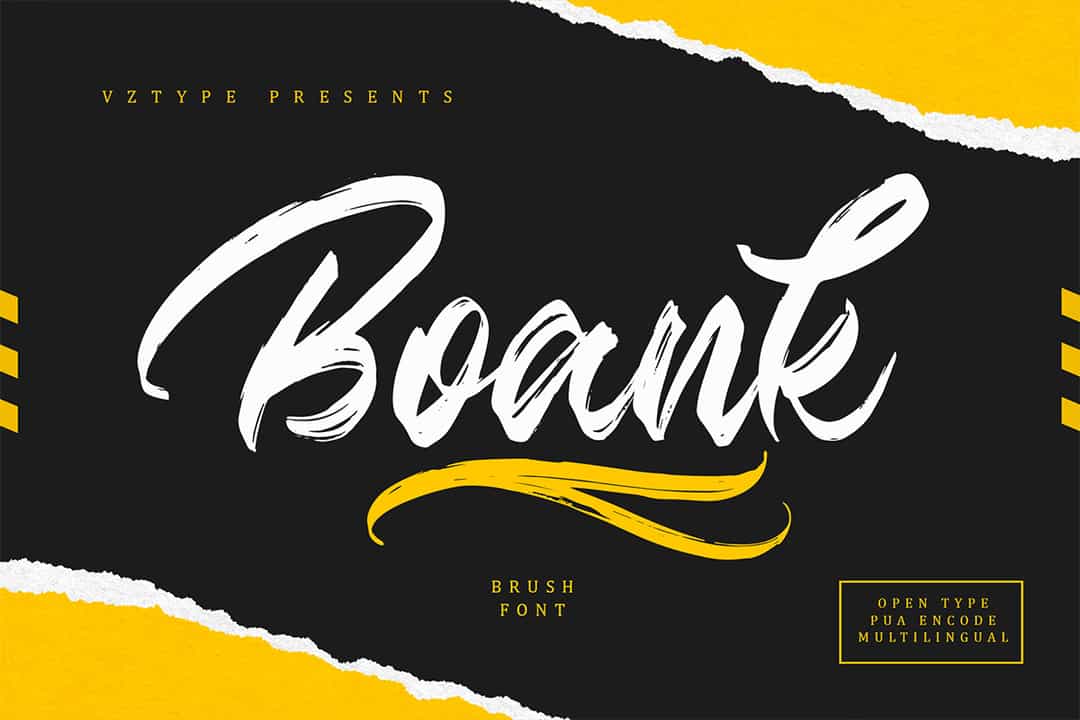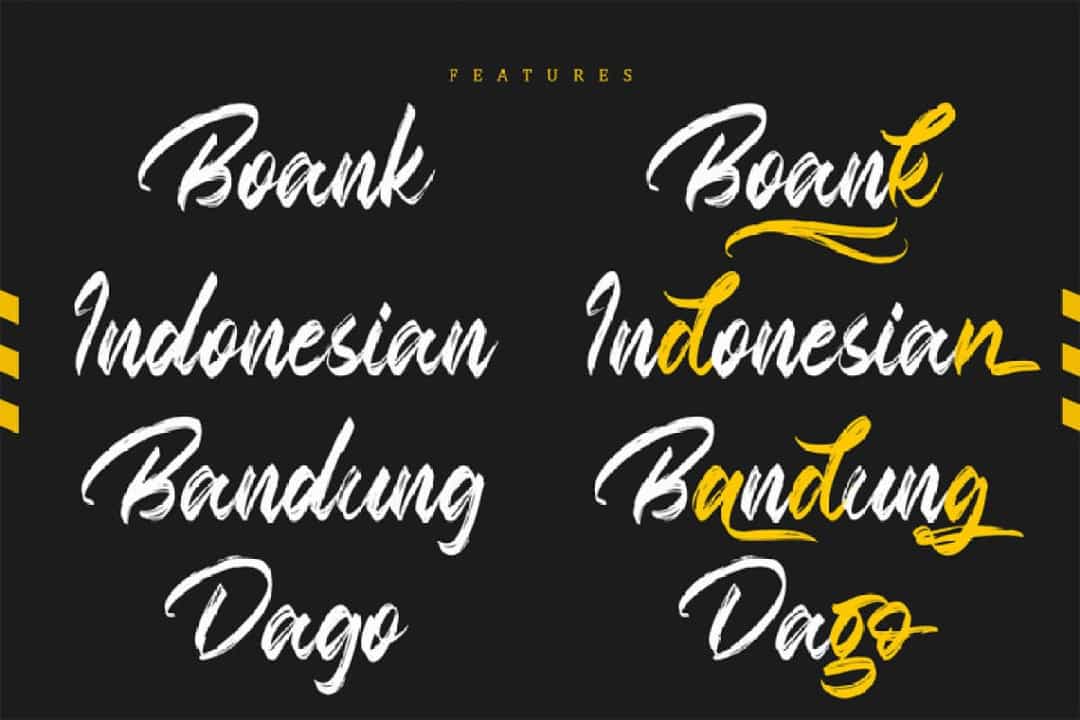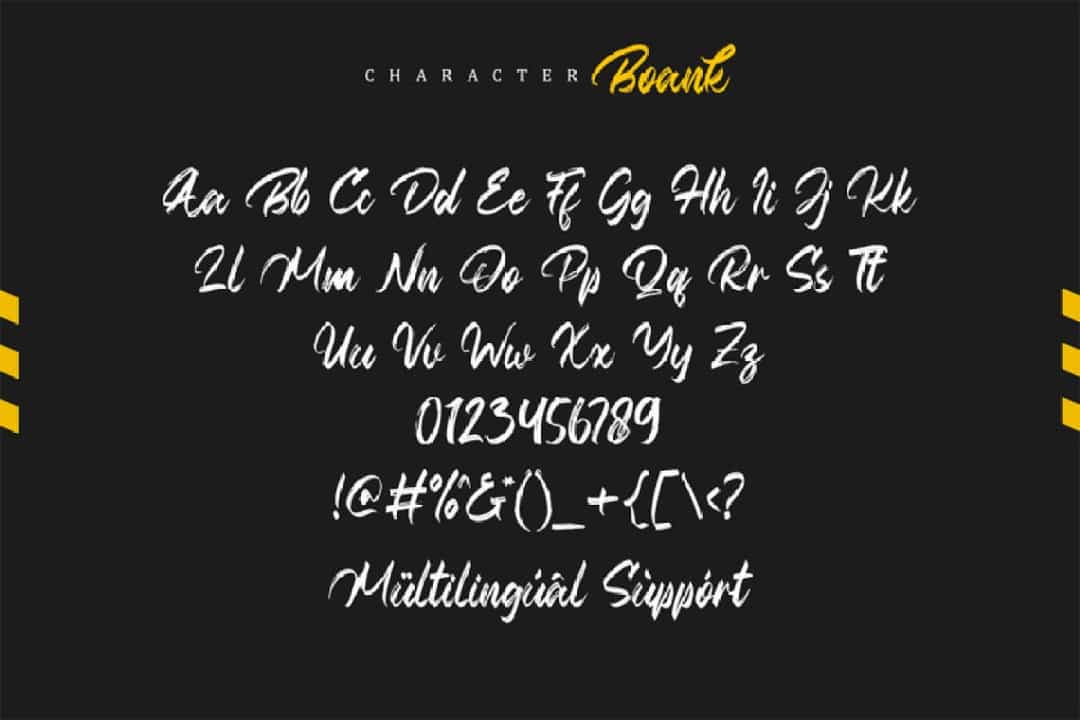
Boank is a beautiful and beautiful script font. As a branding project for logotype, Boank is ideal for those who want to get a simple, contemporary and minimalist look. Logo and business cards, branding gift cards, T-shirts, cover prints, thumbnails, posters, photography quotes are just but some of the graphic designs that can be associated with this material.